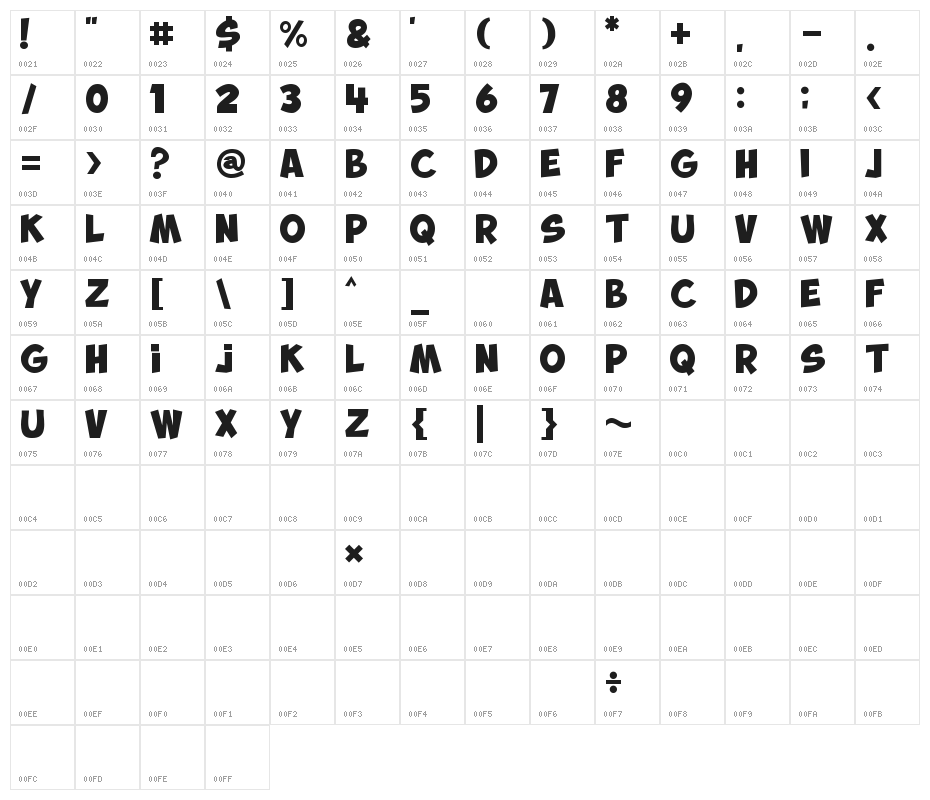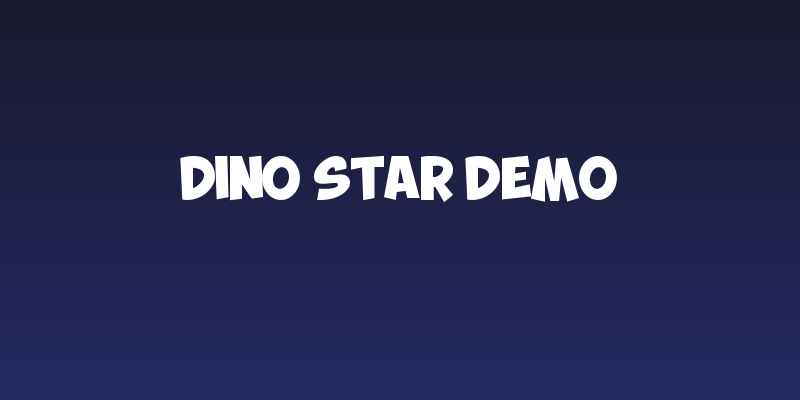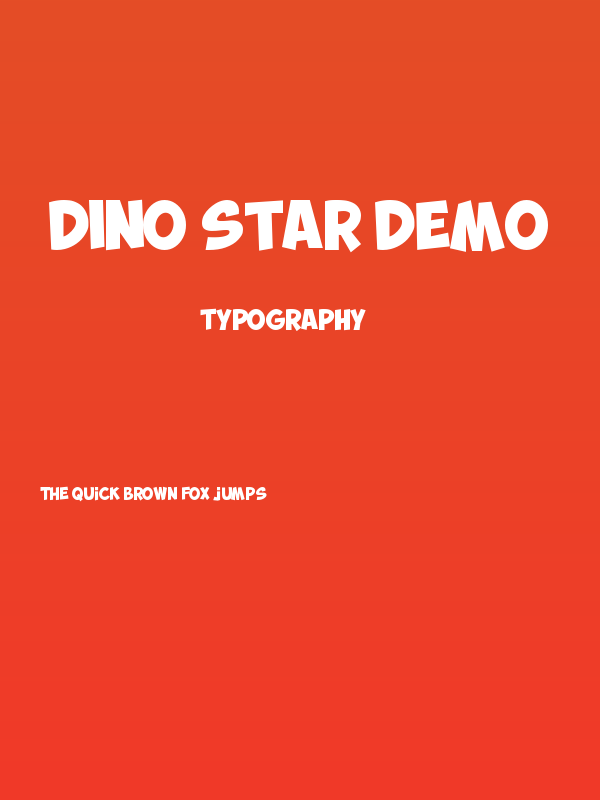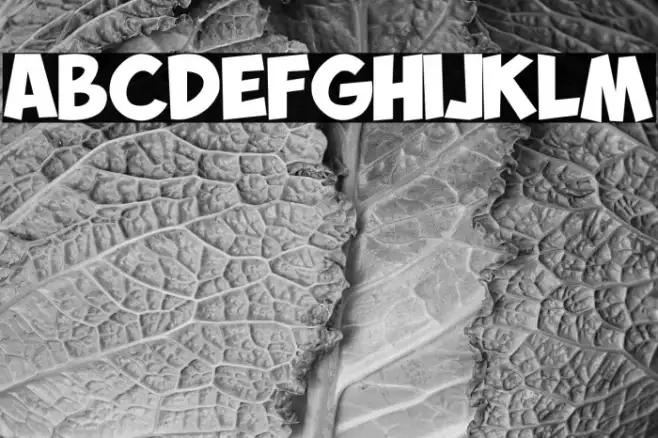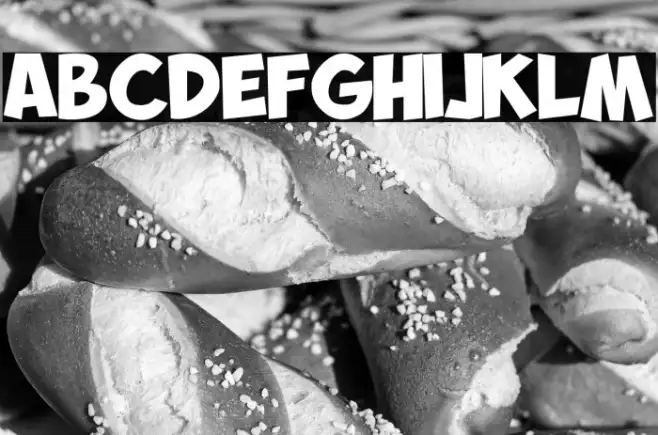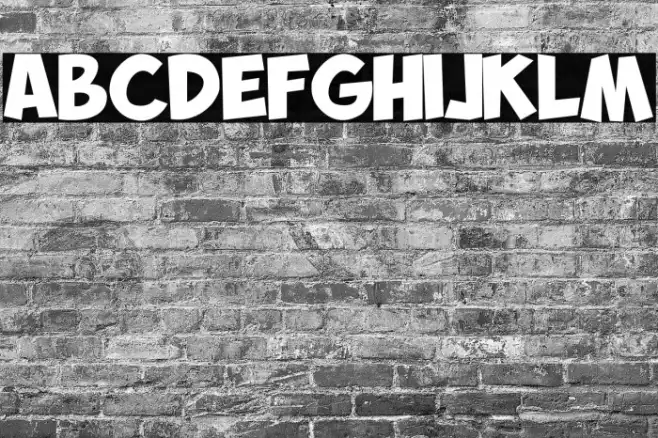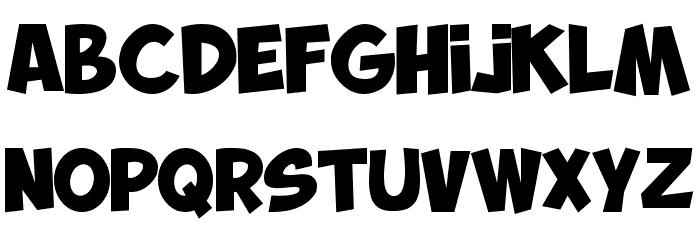
DINO STAR DEMO Font
DINO STAR DEMO Description
This bold and playful font features thick, chunky letters with a slightly irregular, hand-drawn appearance. The uppercase letters are prominent and eye-catching, making it ideal for designs that require a fun and energetic vibe. The numbers and special characters maintain the same bold style, ensuring consistency across all text elements. The font's exaggerated curves and angles give it a dynamic and lively feel, perfect for projects that aim to capture attention and convey a sense of excitement.
| Overall Style | Playful, Energetic |
| Proposed Projects | Ideal for children's books, comic strips, playful branding, and event posters. |